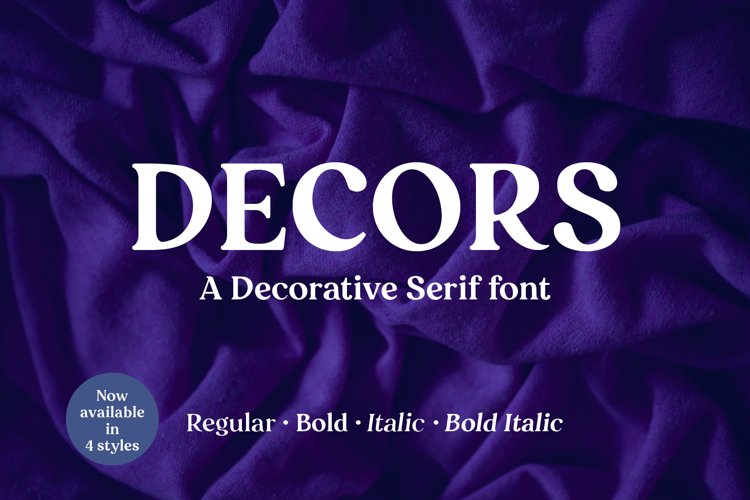
Decors - a decorative serif font
Modern yet traditional, Decors is a delightful serif font with slightly decorative detail to certain characters. Making it great for both titles or big display headlines and also for large amounts of text as a standard body copy font. It is very stylish and can add a touch of luxury to any design you are working on. Decors is one of the best fonts for designers!
Full uppercase and lowercase alphabet with special characters. Also includes the full European glyph set.
Full uppercase, lowercase and special characters. It is also multilingual and contains all standard West, Central and South Eastern European language support.